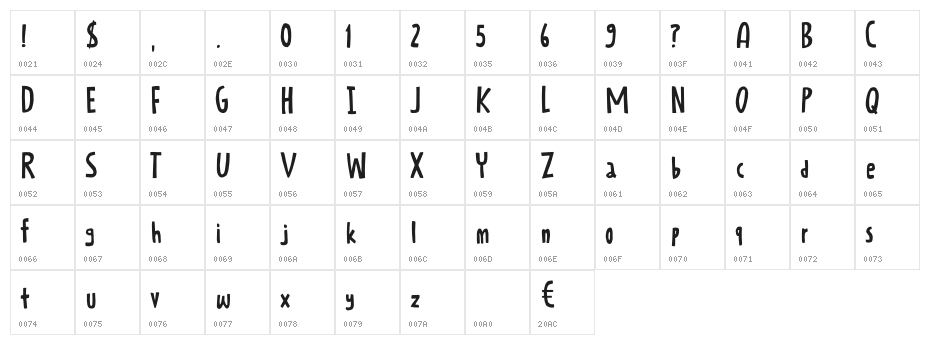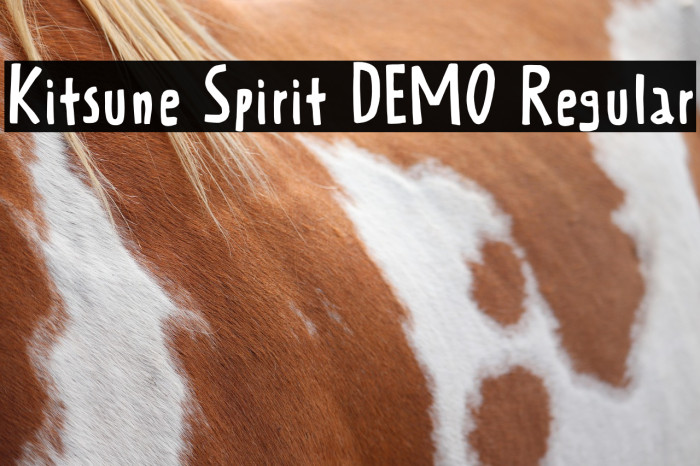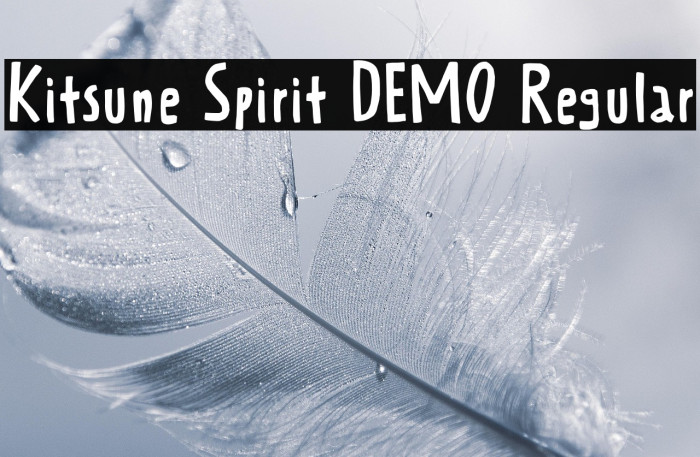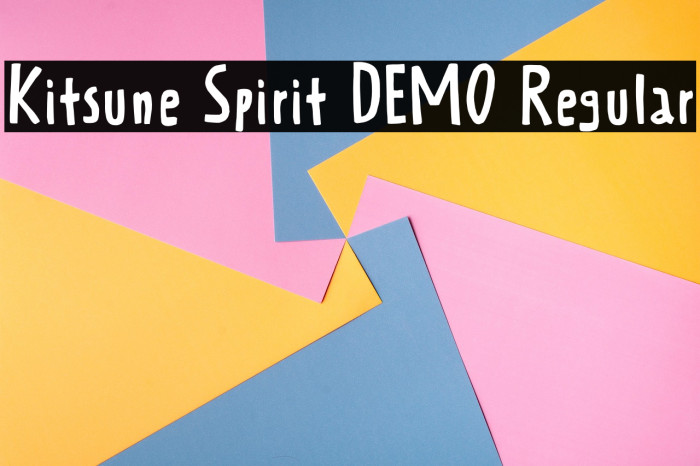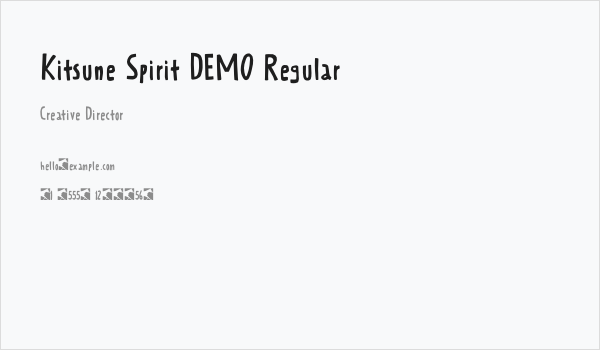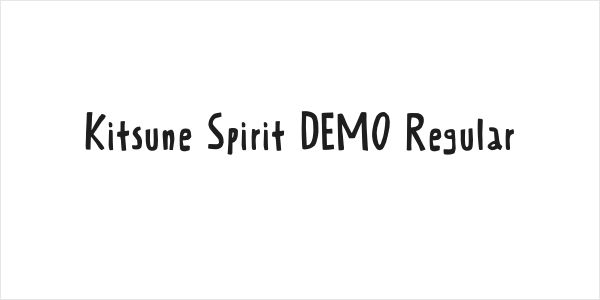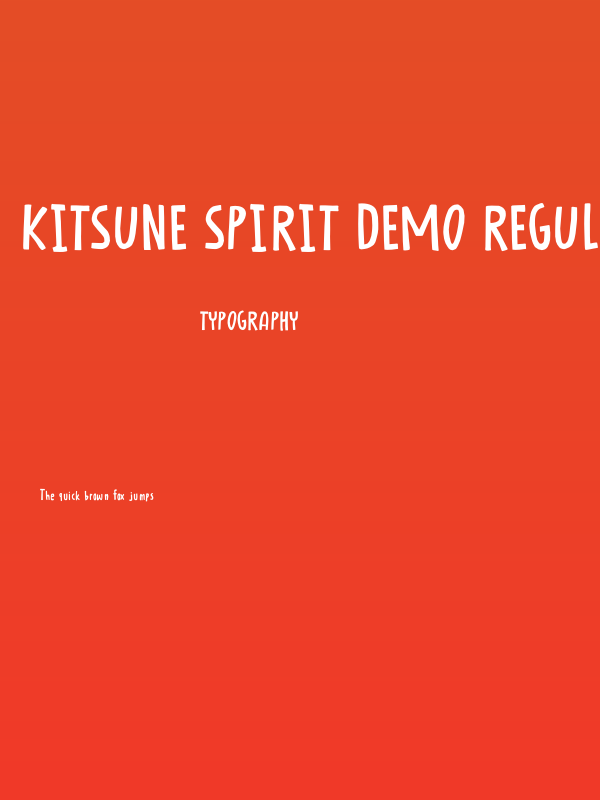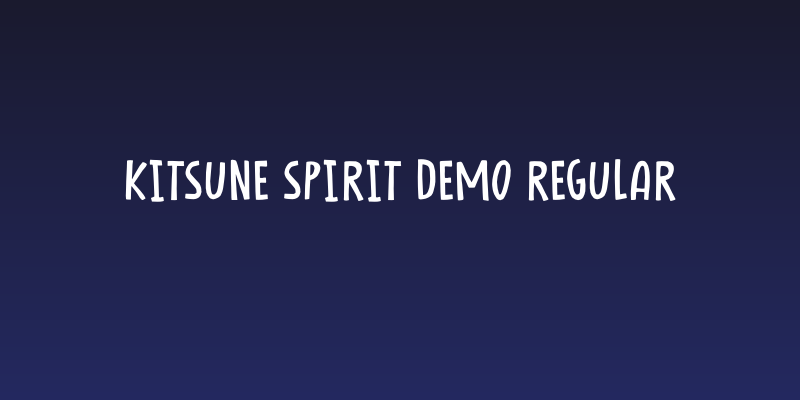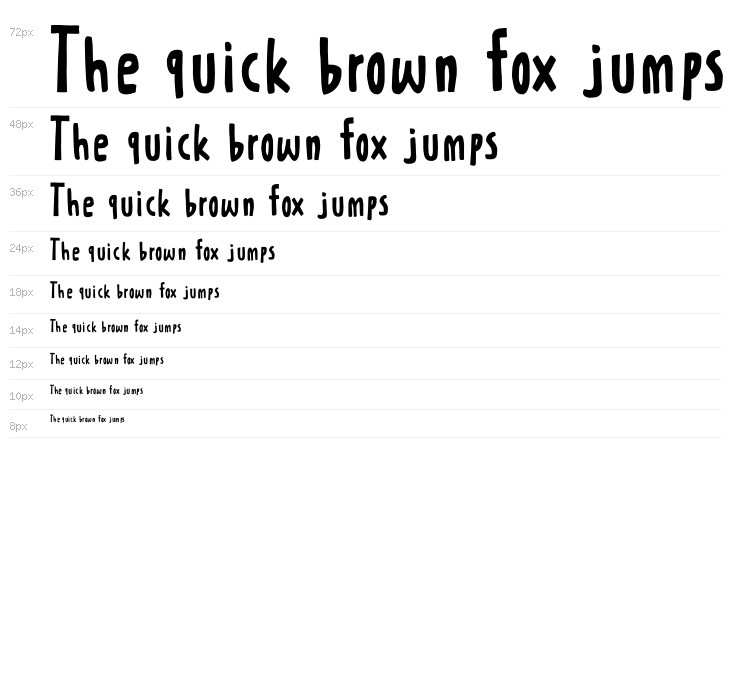
Kitsune Spirit DEMO Regular Font
Kitsune Spirit DEMO Regular Description
This font features a playful and whimsical style with irregular, hand-drawn characters that give it a lively and dynamic appearance. The uppercase and lowercase letters exhibit a slightly uneven baseline, enhancing its casual and informal look. The numbers and special characters maintain the same quirky design, making them consistent with the overall aesthetic. The font's unique charm is suitable for creative and artistic projects, where a touch of personality is desired. Its distinctive style makes it stand out, adding a fun and engaging element to any design.
| Proposed Projects | Ideal for children's books, playful branding, creative posters, and artistic invitations. |